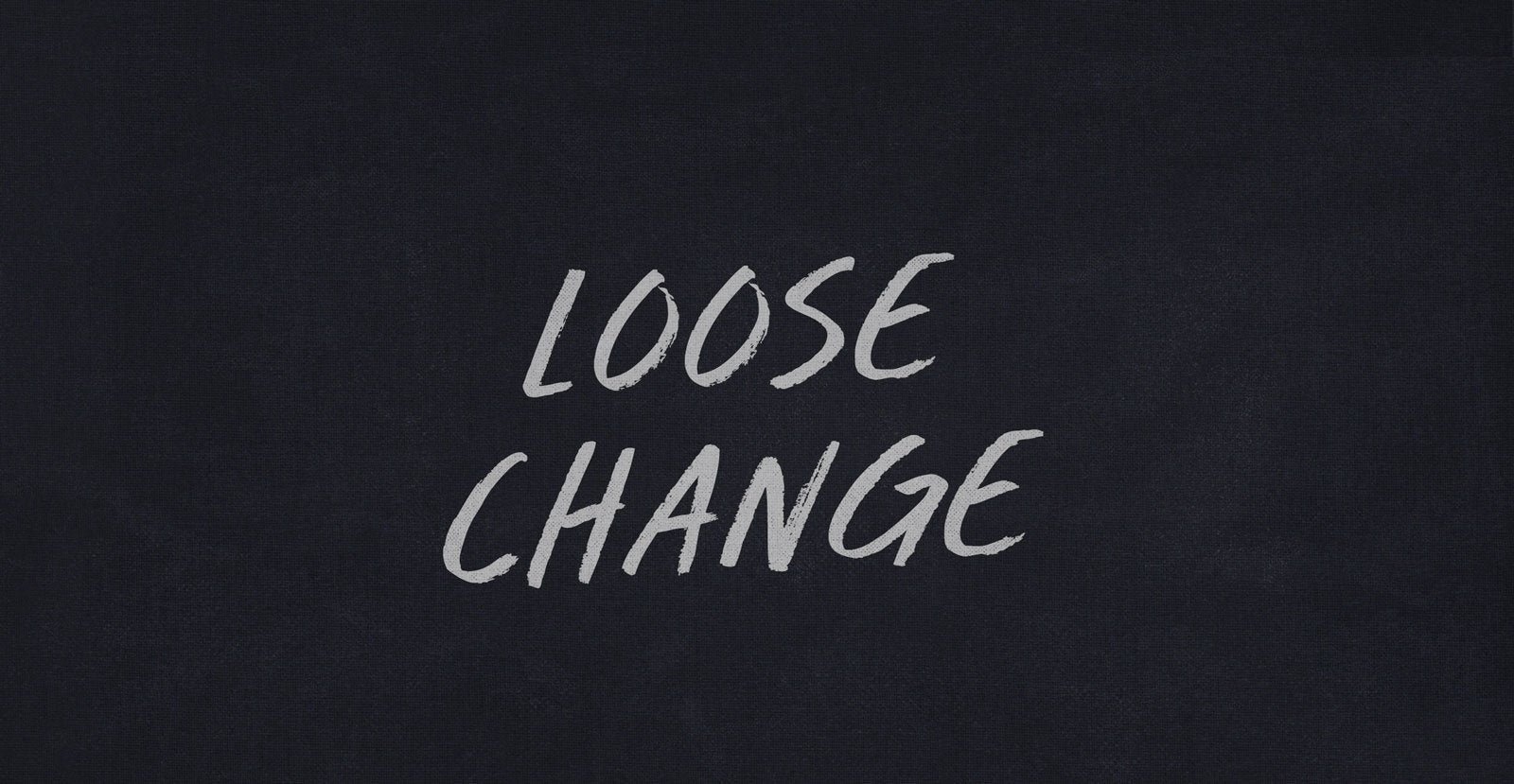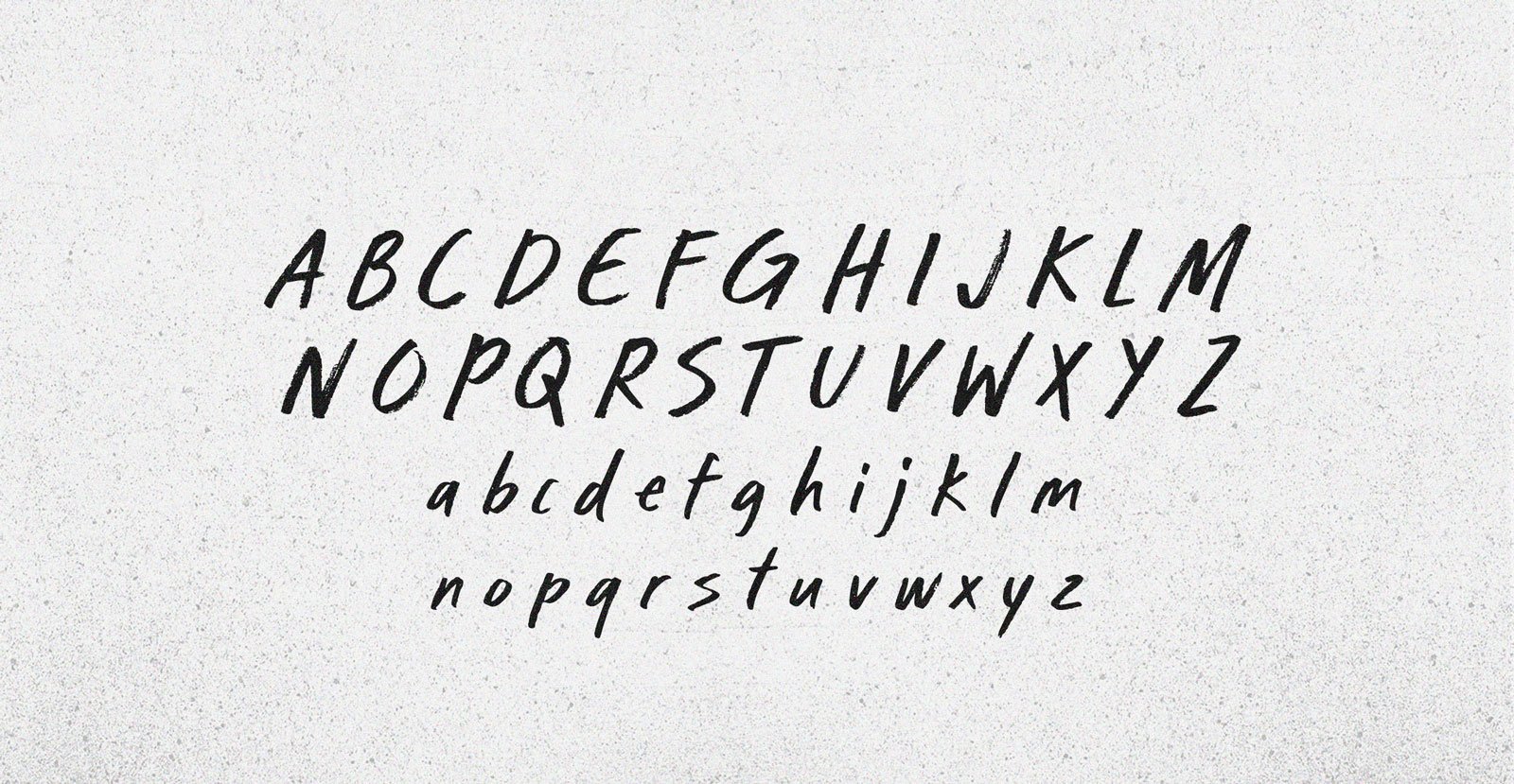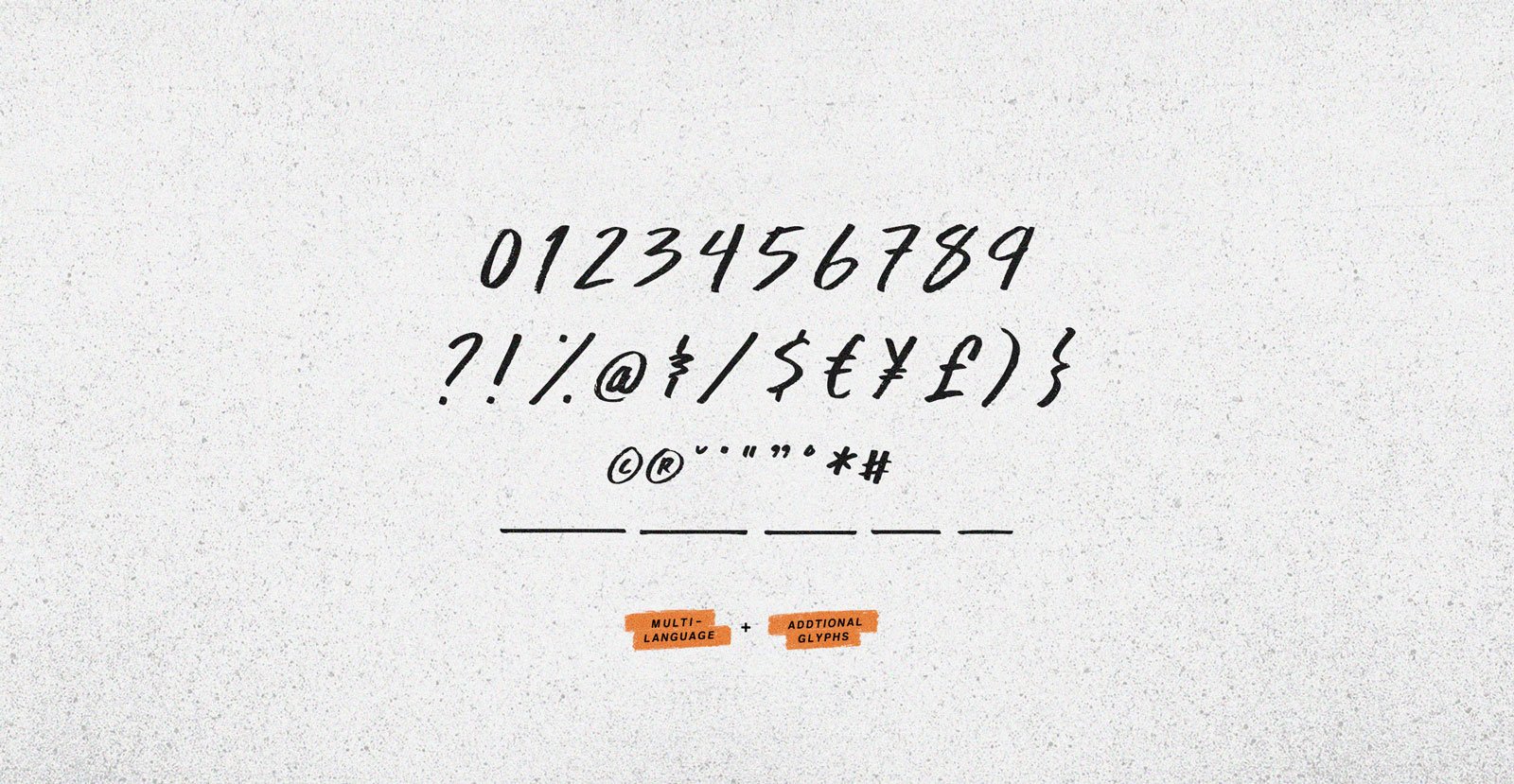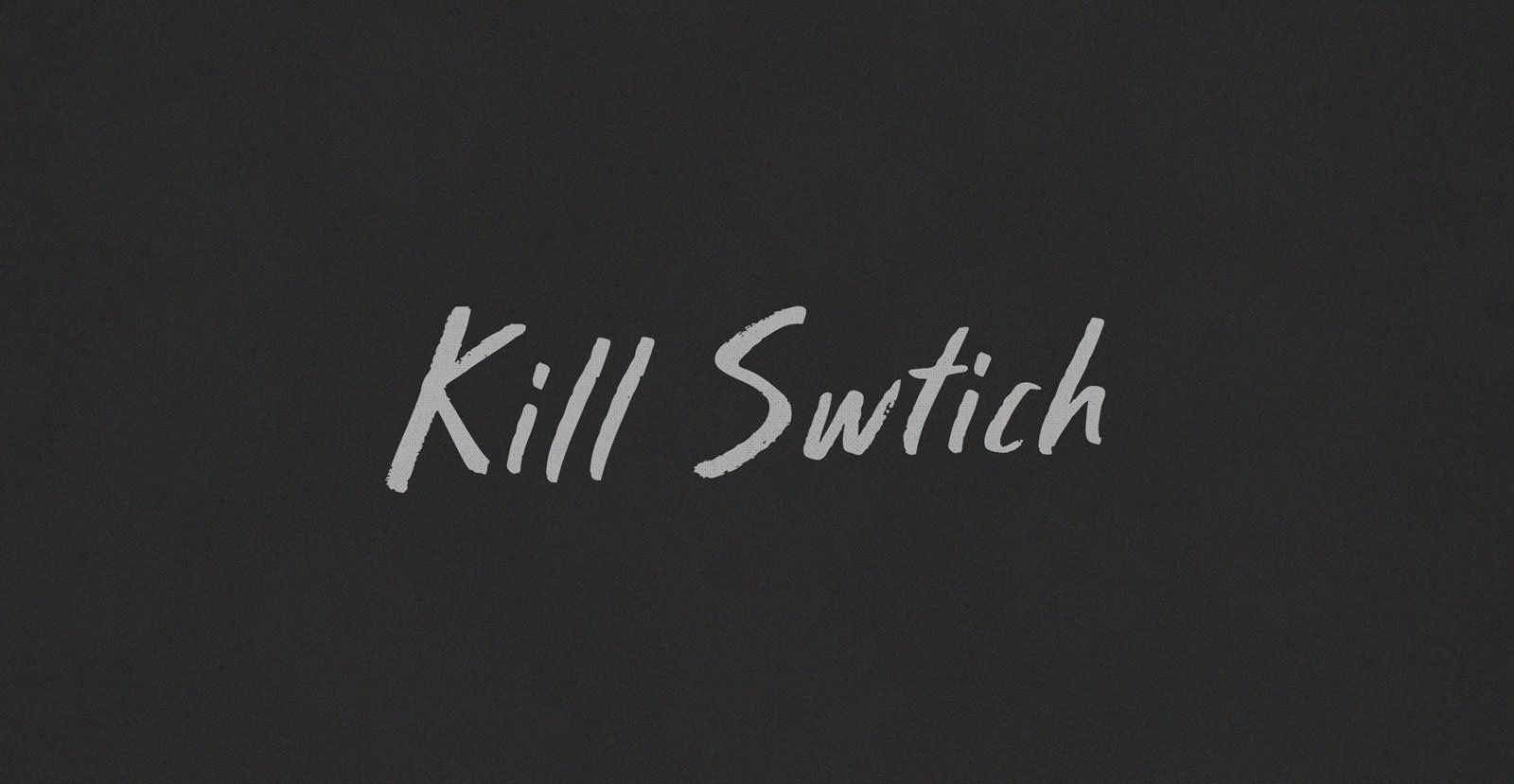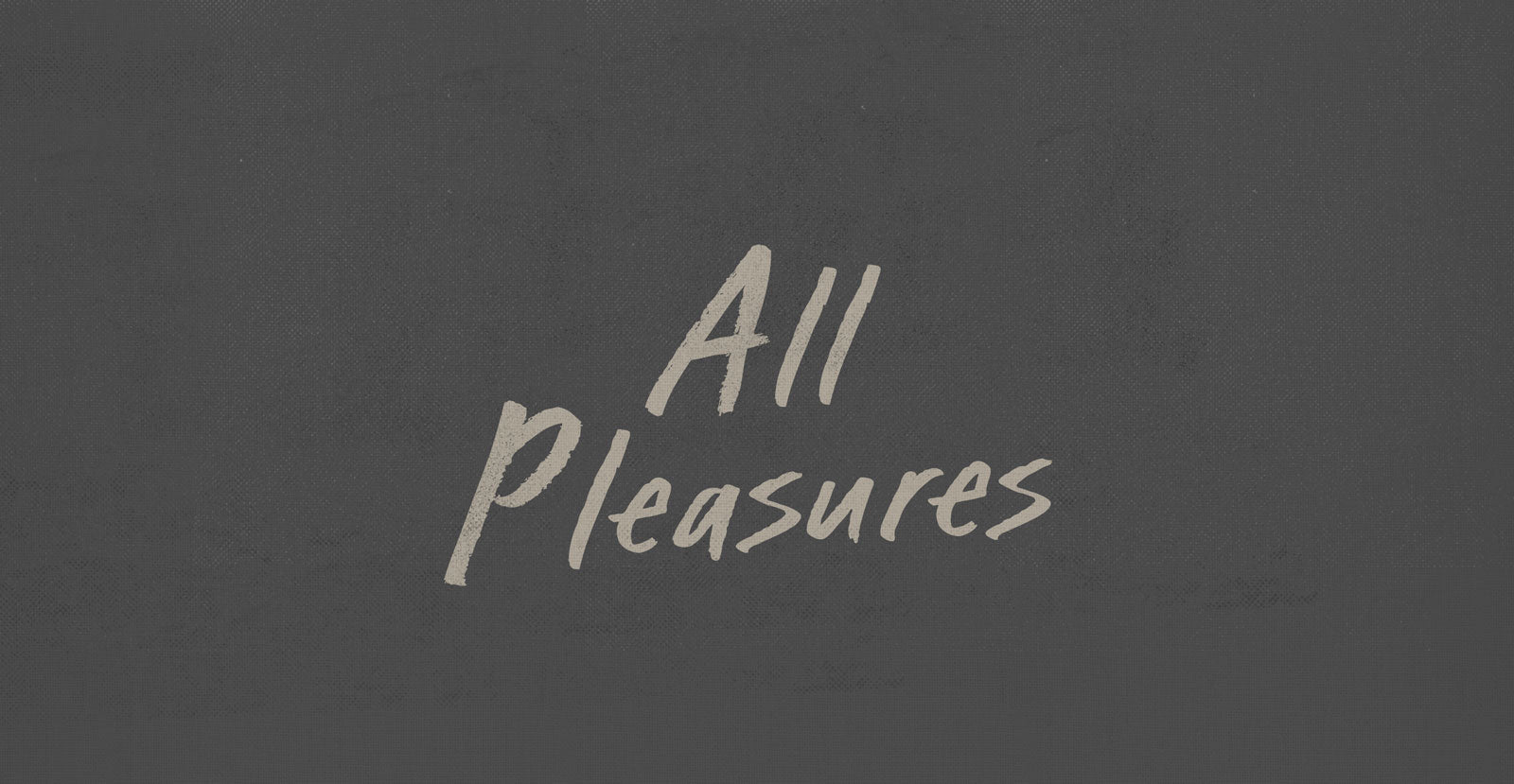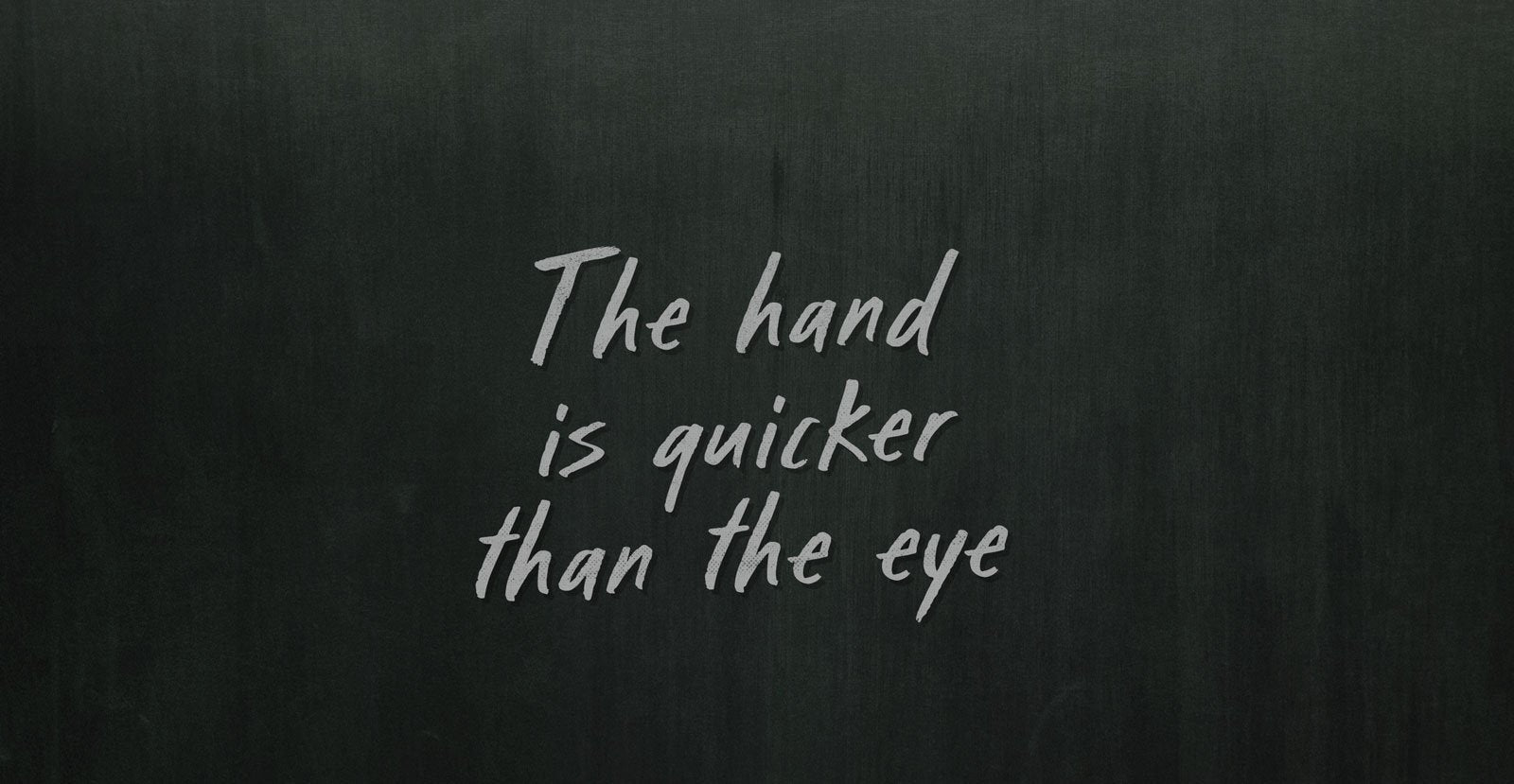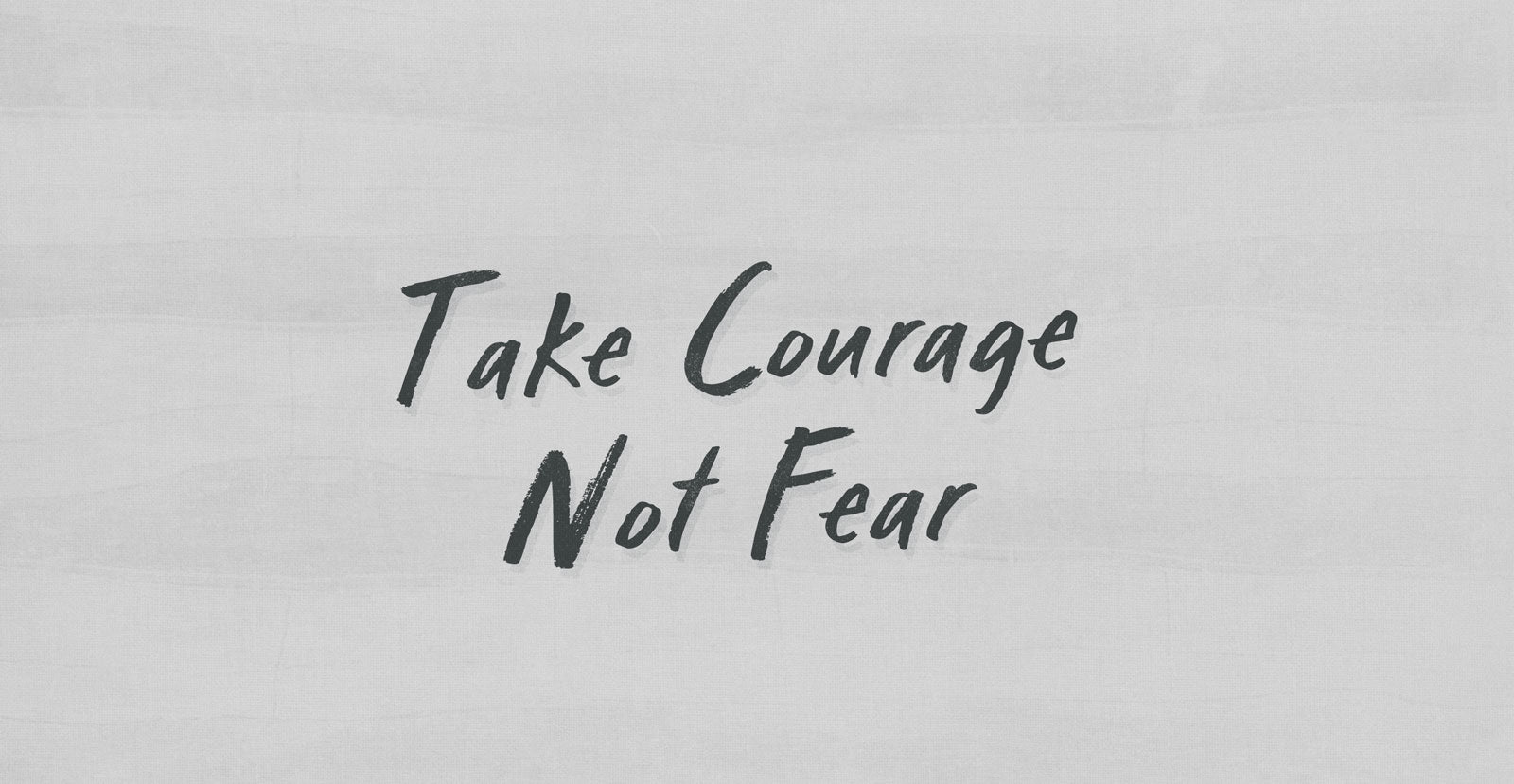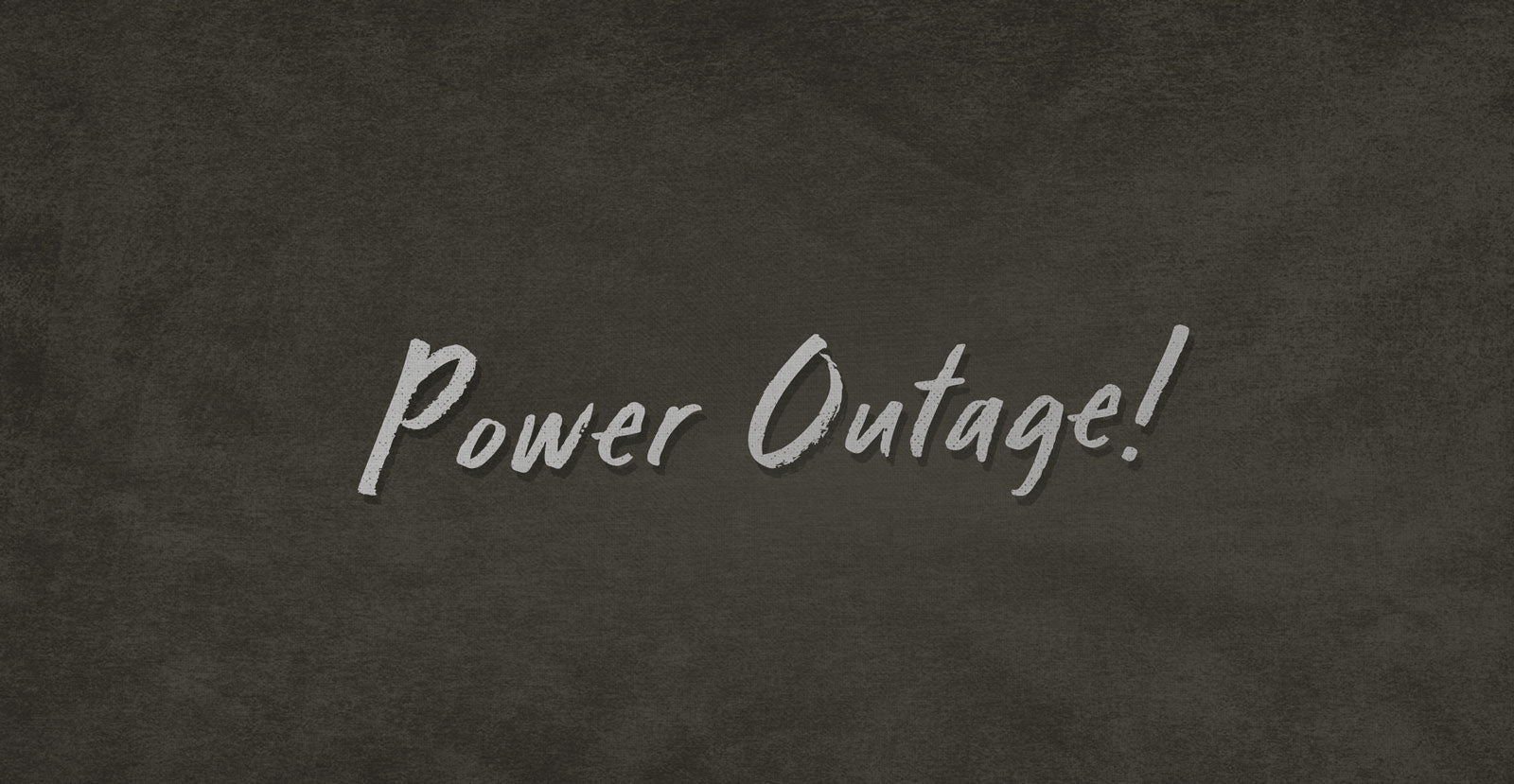
Loose Change
What's once gone comes back, scattered and collected in the same form it held before--absent profound differences but functionally irreplaceable; the way bottle openers break beer caps and land them with the Loose Change: in couches, under car seats, along the beach.